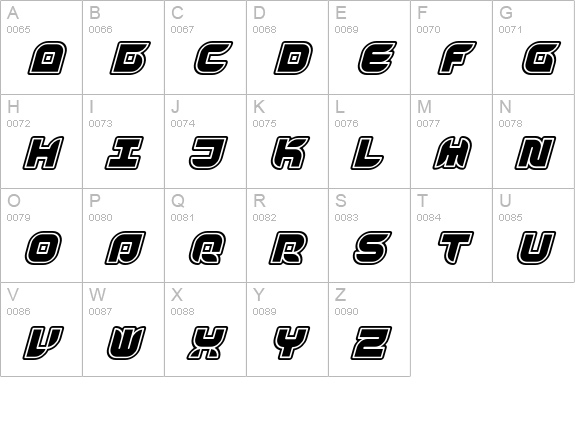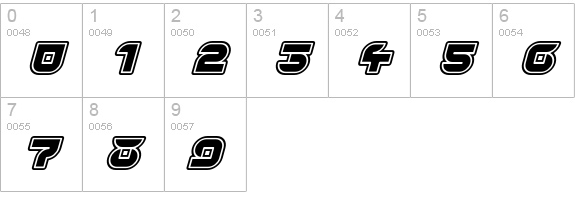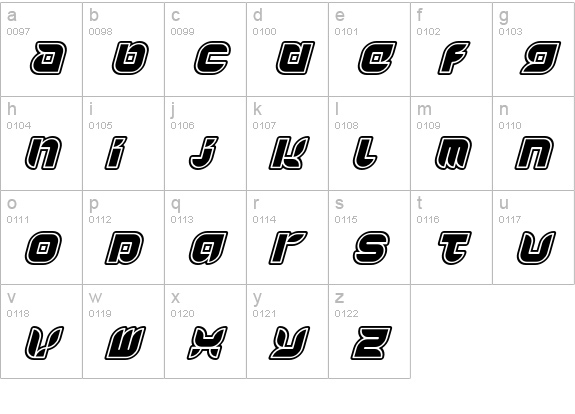
Yr72-InlineItalic Font Details
Yr72-InlineItalic font is a sleek and modern typeface that exudes sophistication and elegance. Its unique design features inline details that add a touch of creativity and flair to any project. Perfect for branding, logos, headlines, and more, this font is sure to make a statement. What makes Yr72-InlineItalic even more appealing is that it is available for free download at FontsMarket.com. This means you can easily access this stylish font without having to spend a dime. Whether you're a designer looking to add a fresh new font to your collection or a business owner in need of a standout typeface for your marketing materials, Yr72-InlineItalic is the perfect choice. Download it today and elevate your designs with this eye-catching and versatile font.